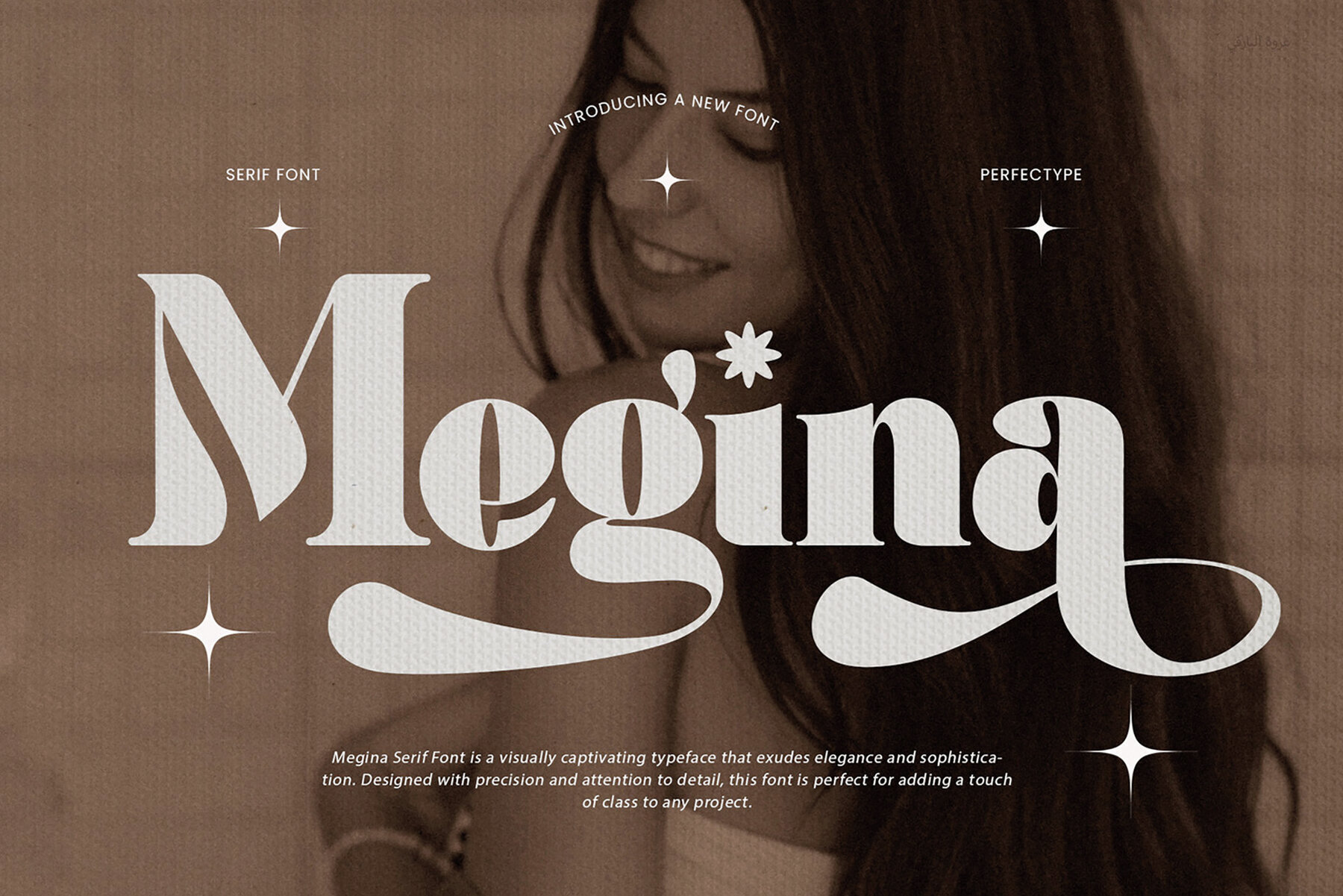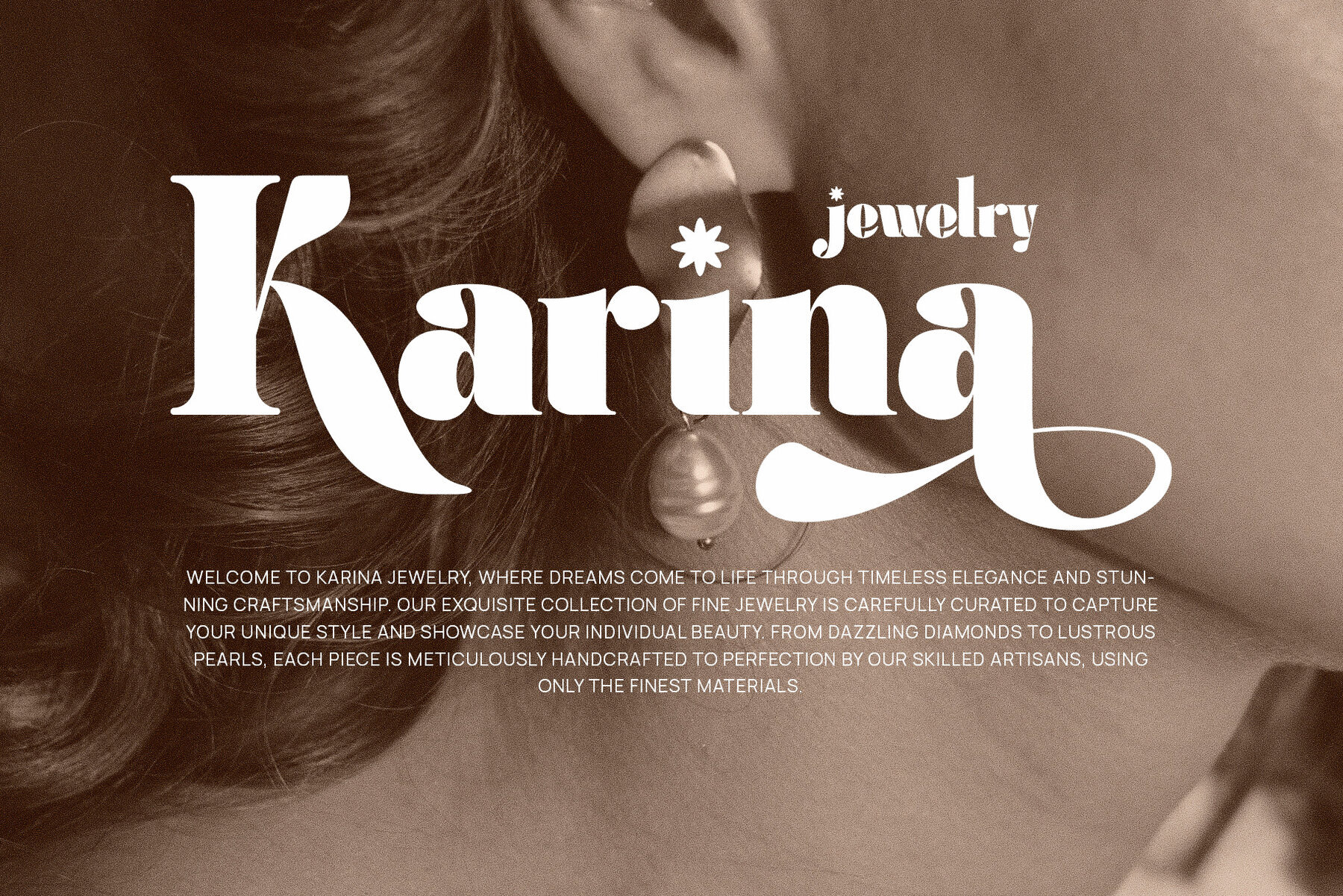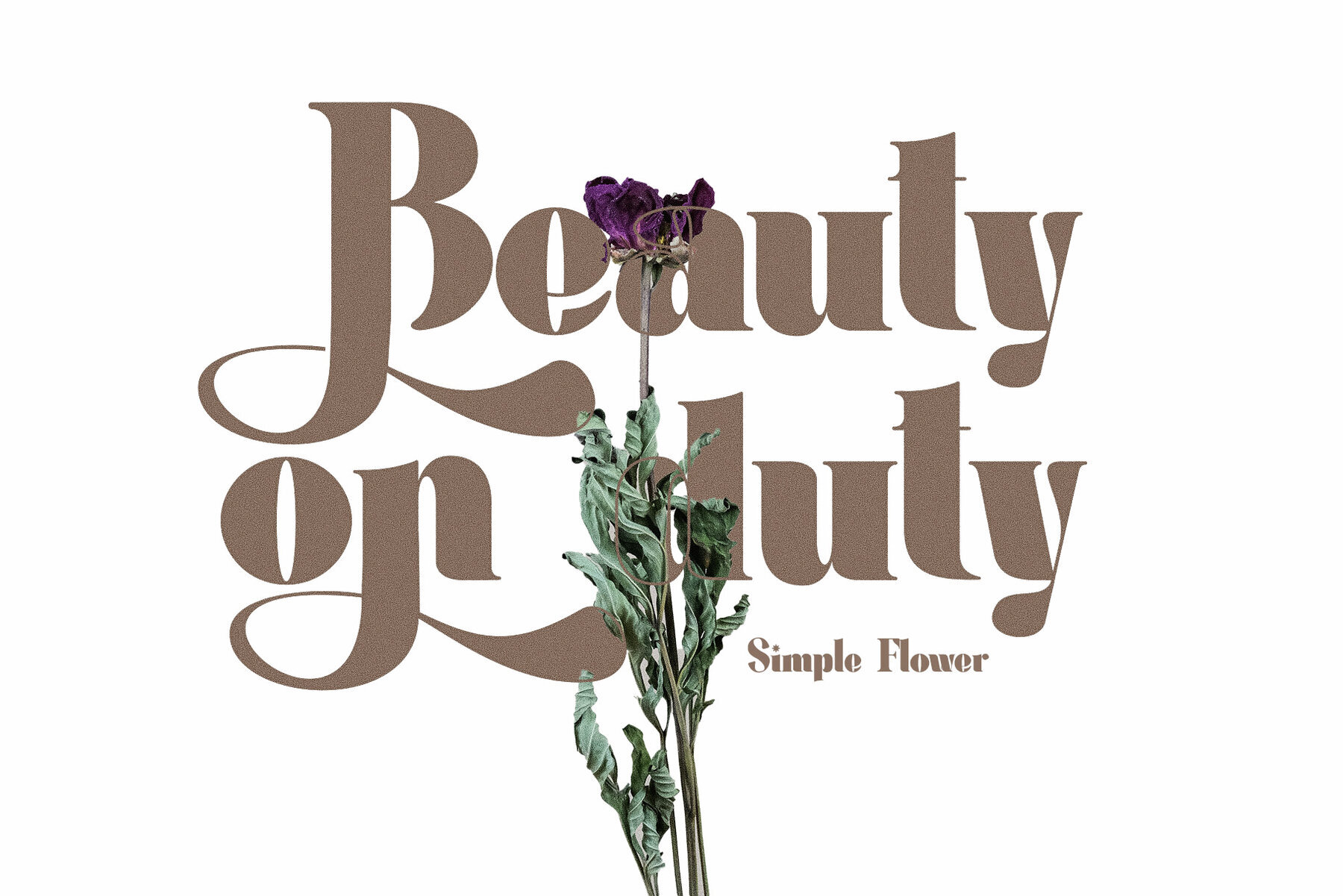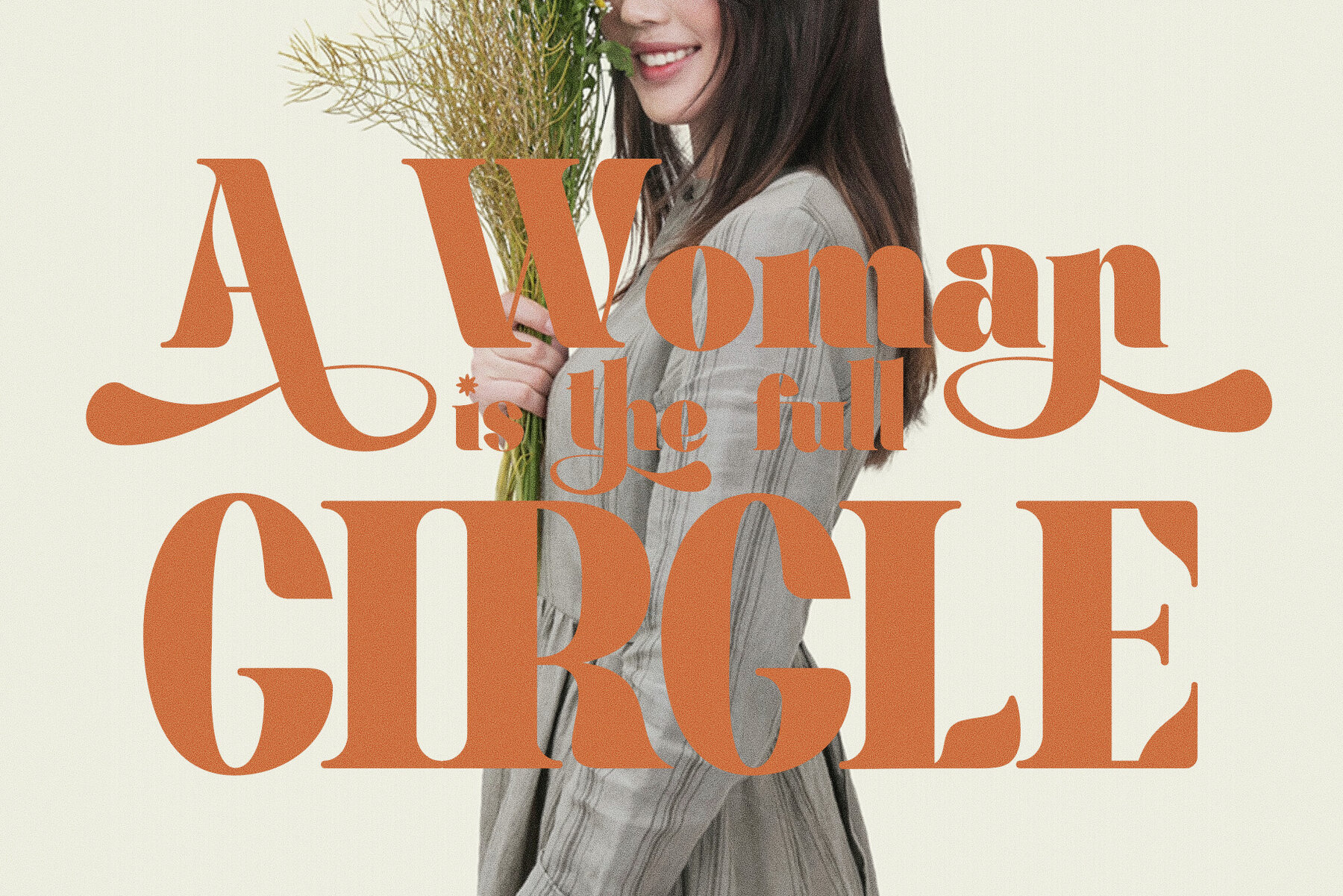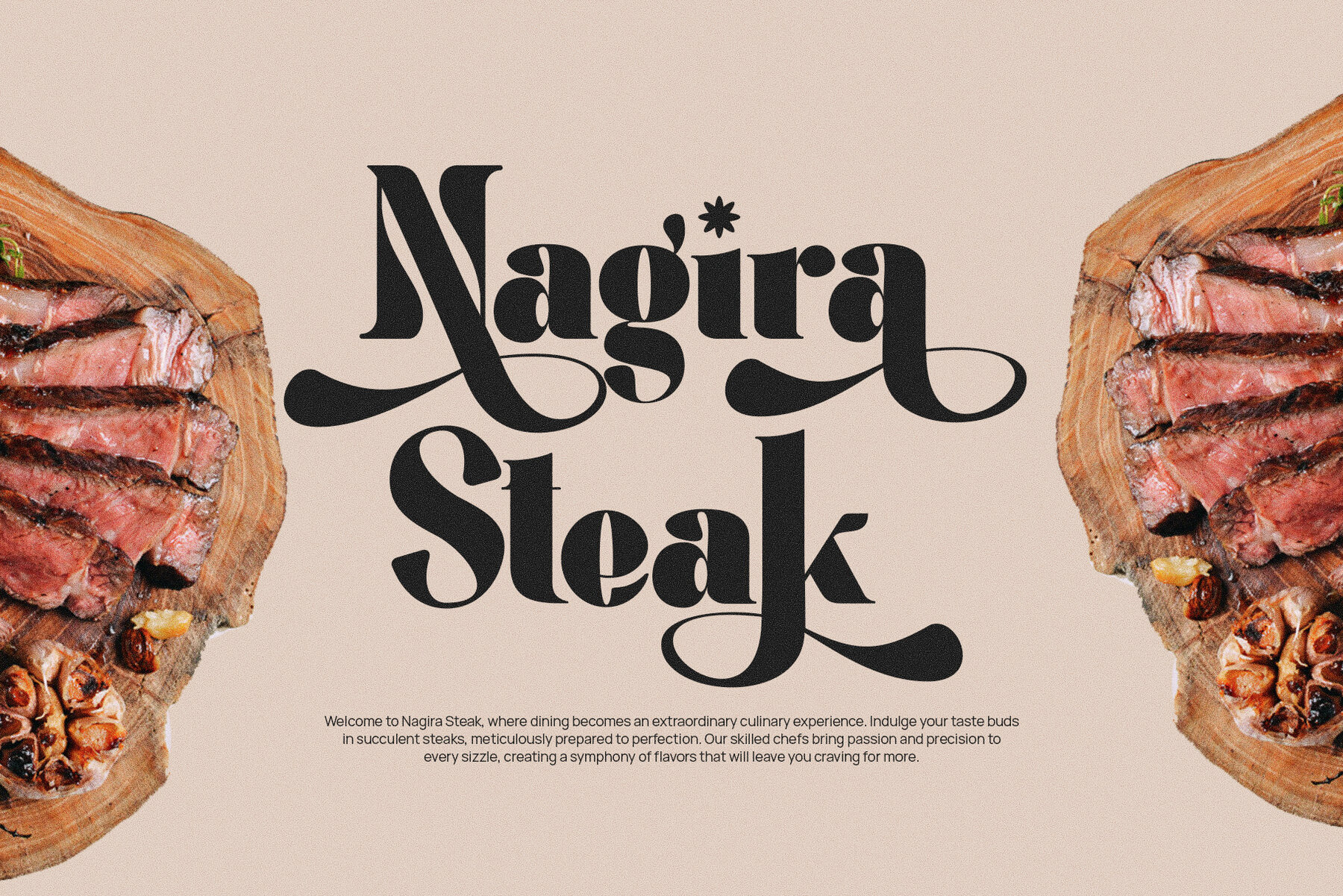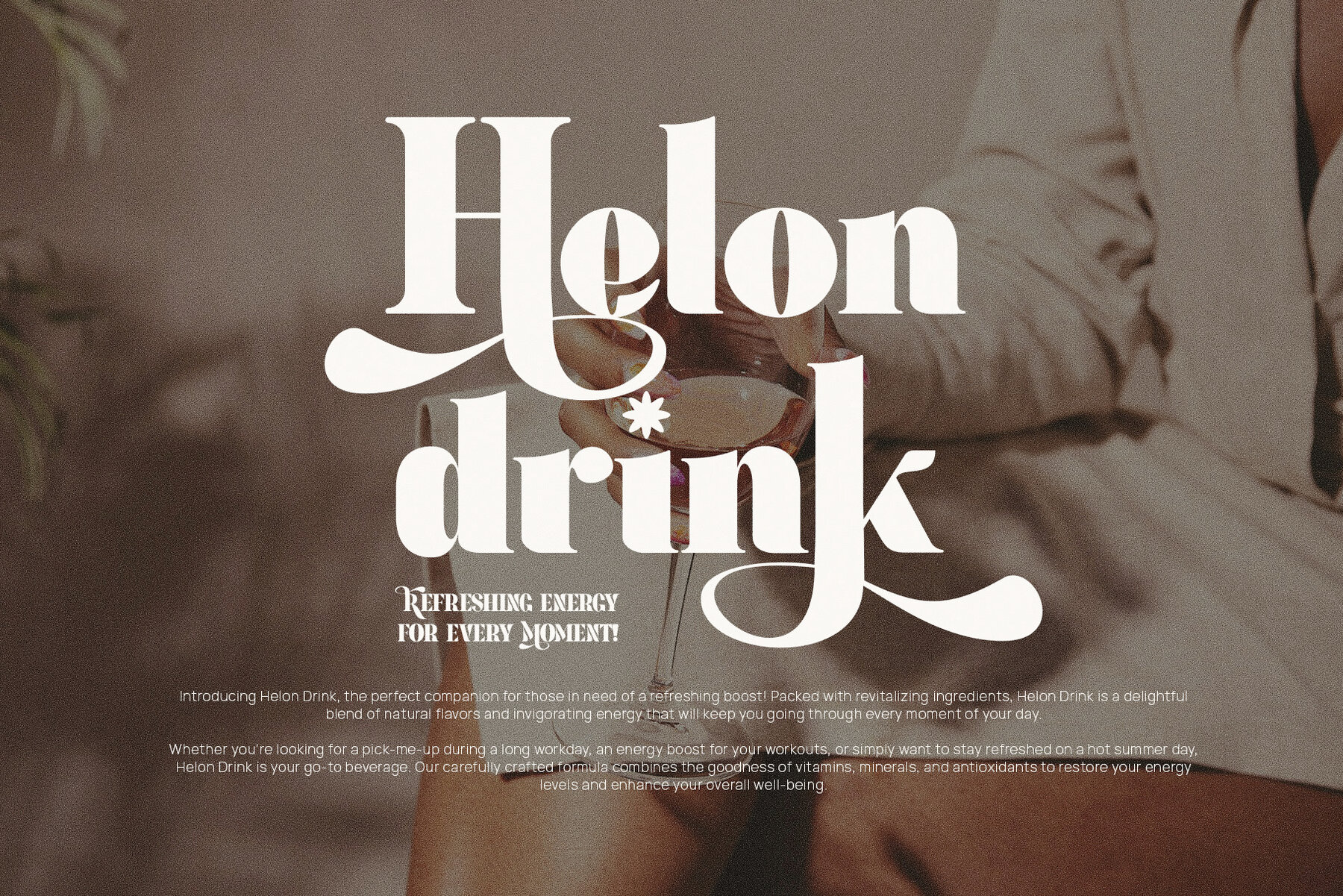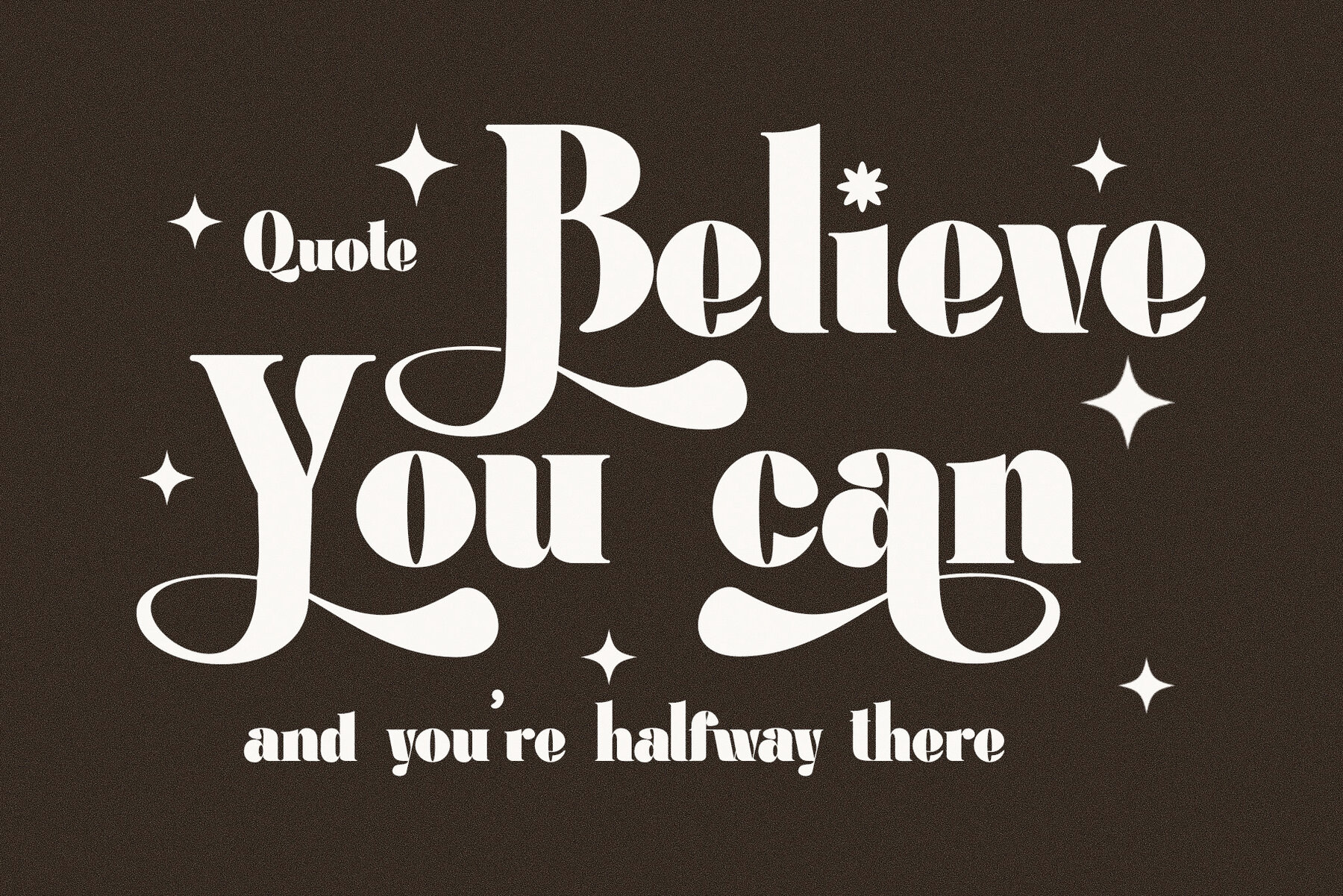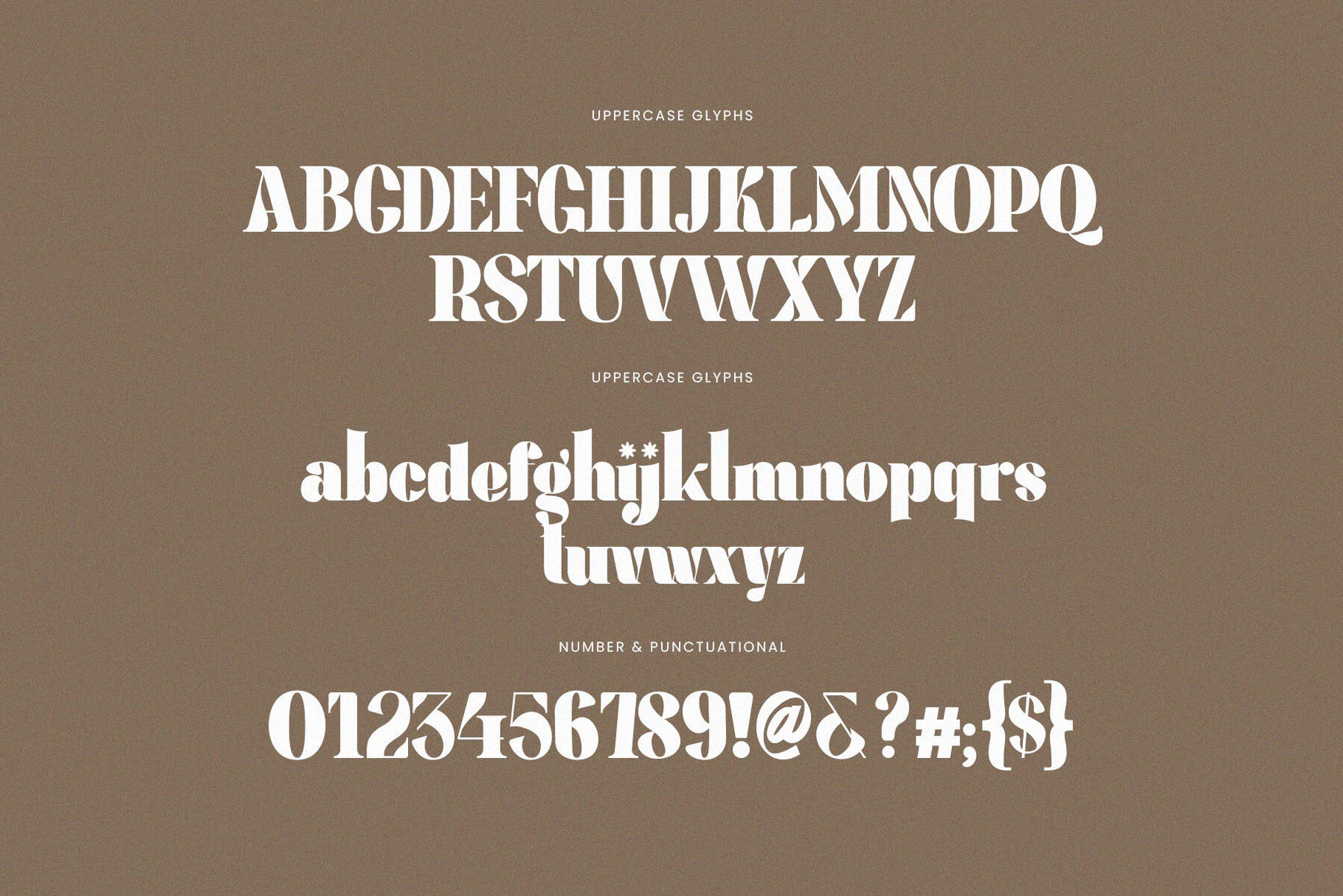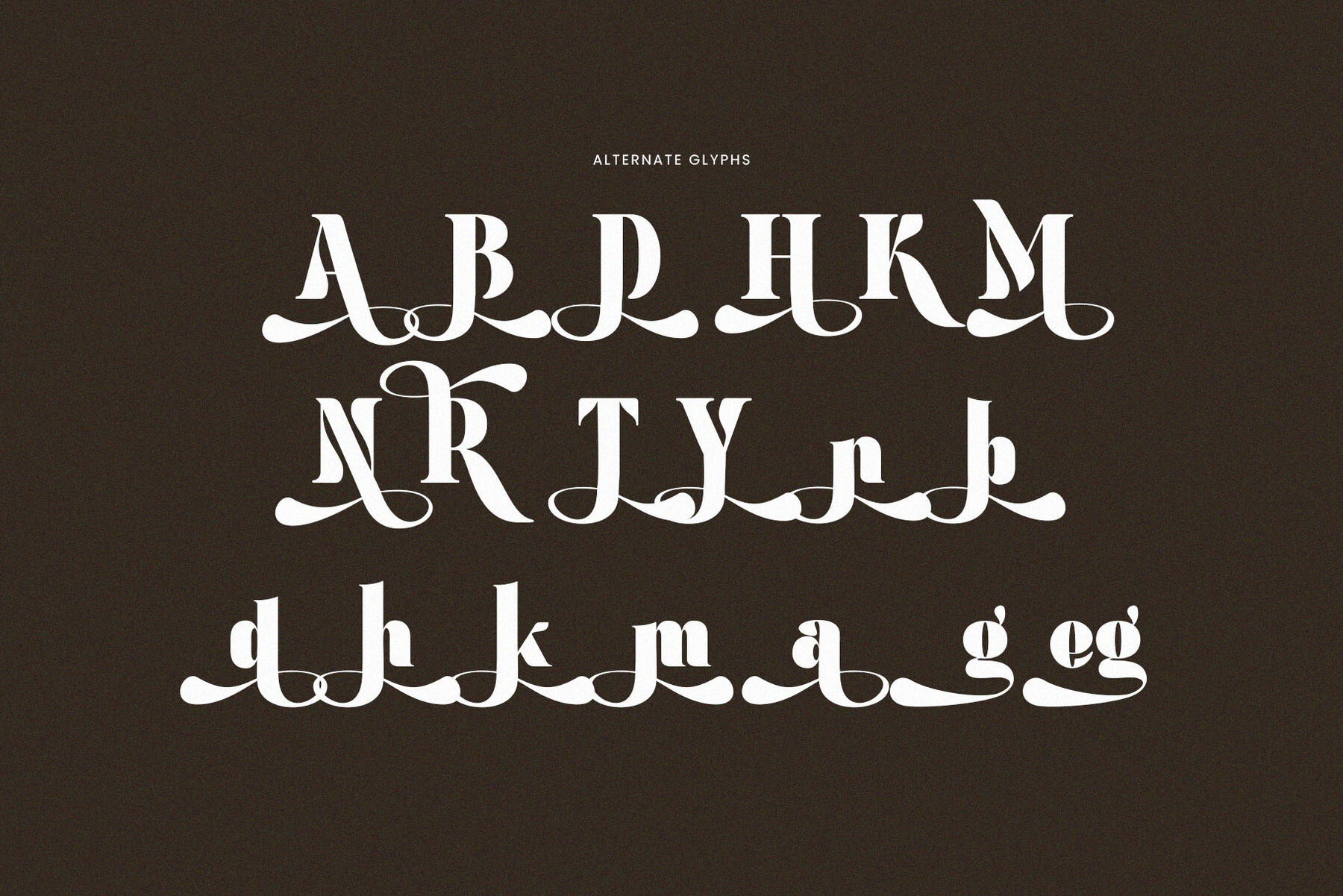
Megina Font
Megina Regular
Megina is a unique and elegant serif typeface perfectly suited for branding and logo designs. Combining class and modernity, this font is ideal for a wide array of projects, including wedding invitations, social media posts, product packaging, and advertisements. With its sophisticated style, Megina guarantees high readability, making it a reliable choice for any design project.
The font includes standard characters, numerals, punctuation, and accented characters for West European languages, ensuring versatility in your creations. Optimized for use on both PC and Mac, Megina performs best with software like Adobe Illustrator or Adobe Photoshop. Enhance your designs with this exquisite typeface and experience a refined touch to your work.